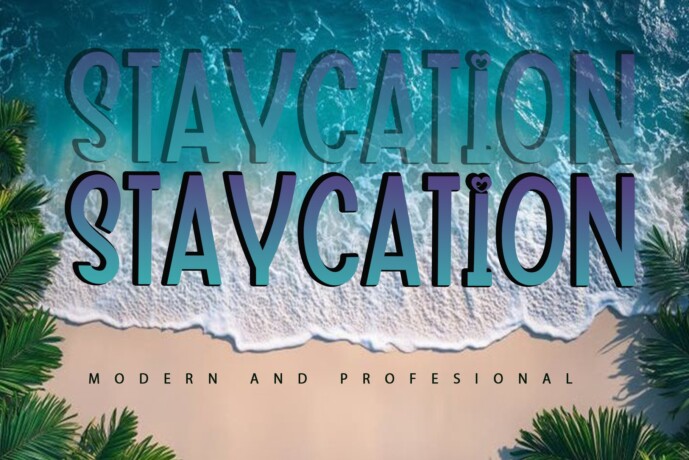
Staycation Font
Staycation is a charming handwritten font exuding a casual and relaxed vibe. Its playful strokes and irregularities capture the essence of spontaneity and creativity. Perfect for adding a personal touch to invitations, cards, and social media posts, this font brings warmth and friendliness to any project.